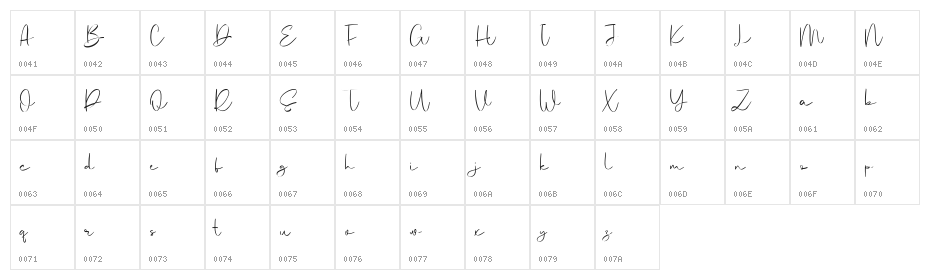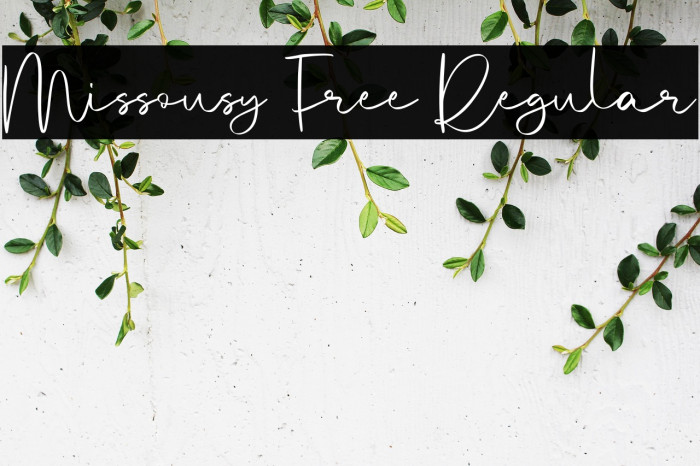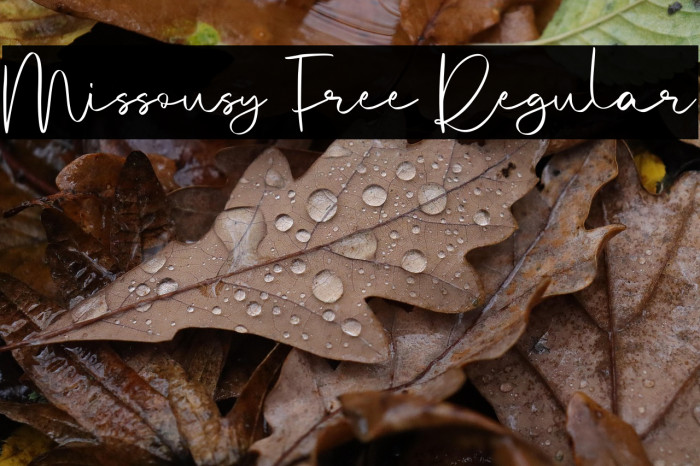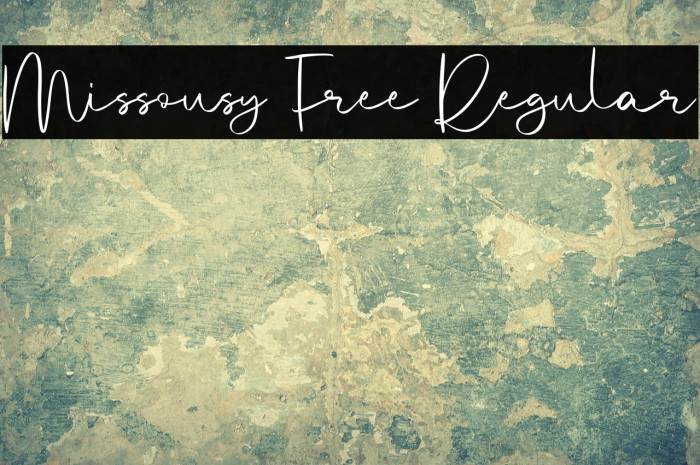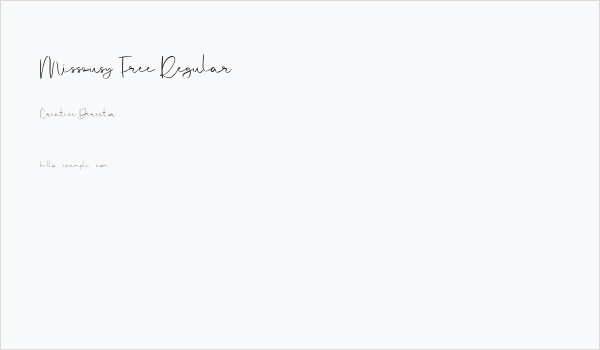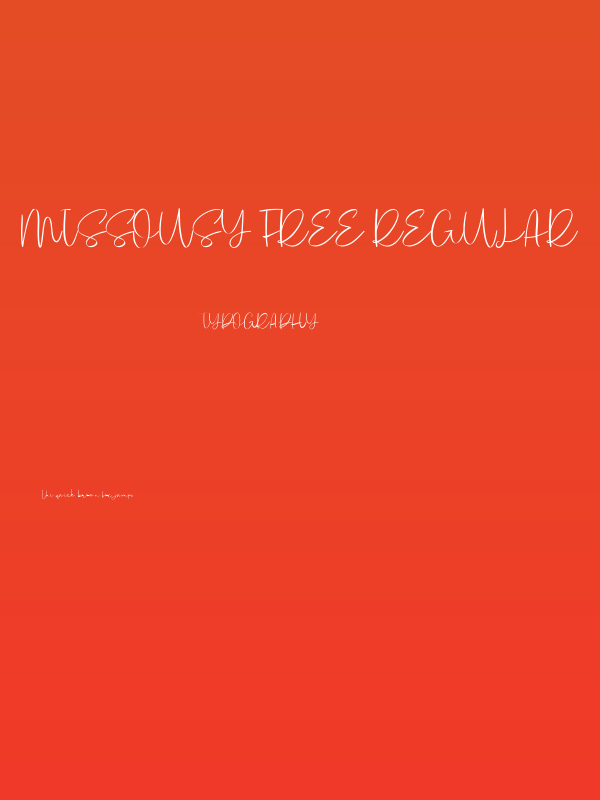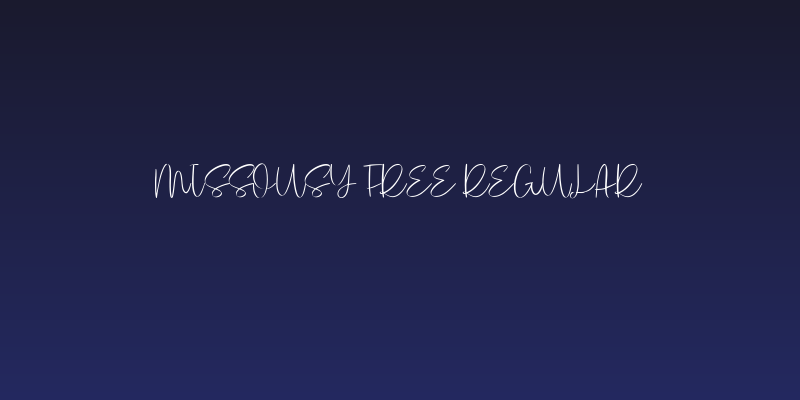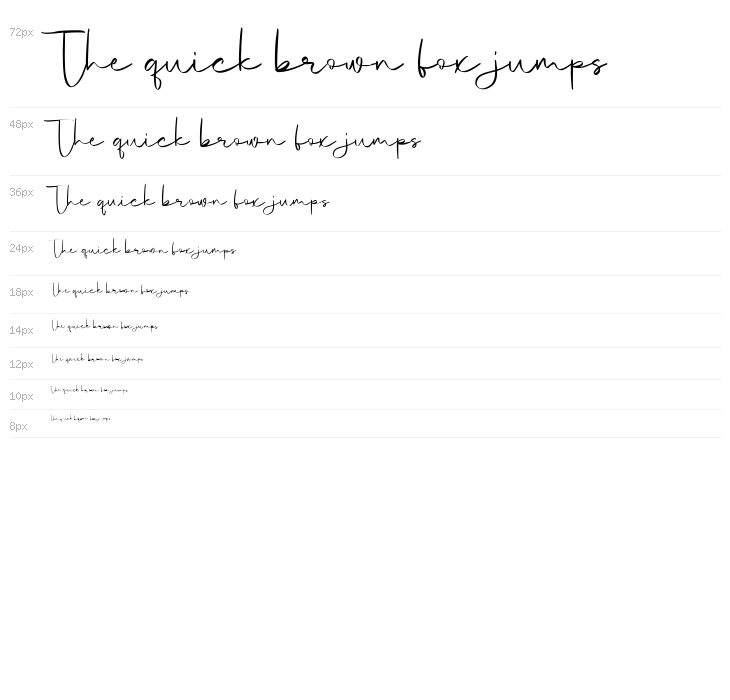
Missousy Free Regular Font
Missousy Free Regular Description
This font features a flowing, cursive style with a handwritten appearance. The letters are connected, giving it a continuous and elegant look. The strokes are smooth and consistent, with a slight variation in thickness that adds a touch of sophistication. The uppercase letters are bold and prominent, while the lowercase letters maintain a delicate and graceful form. This font exudes a sense of personal touch and creativity, making it ideal for projects that require a humanistic and artistic feel. The overall design is both modern and timeless, suitable for a variety of applications.
| Use Case | Logos, Invitations, Artistic Projects |
| Proposed Projects | Ideal for wedding invitations, greeting cards, personal branding, and artistic projects. |